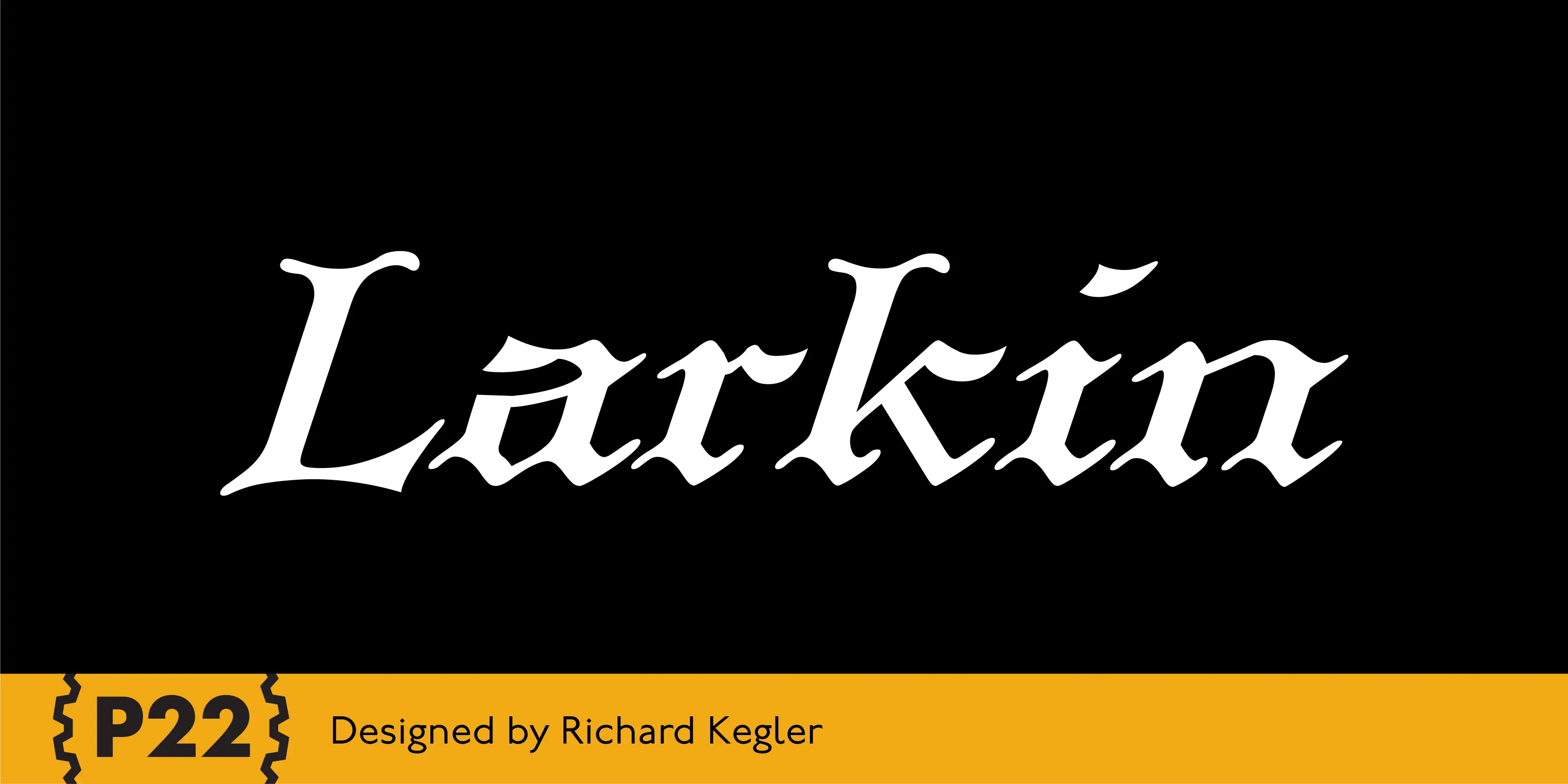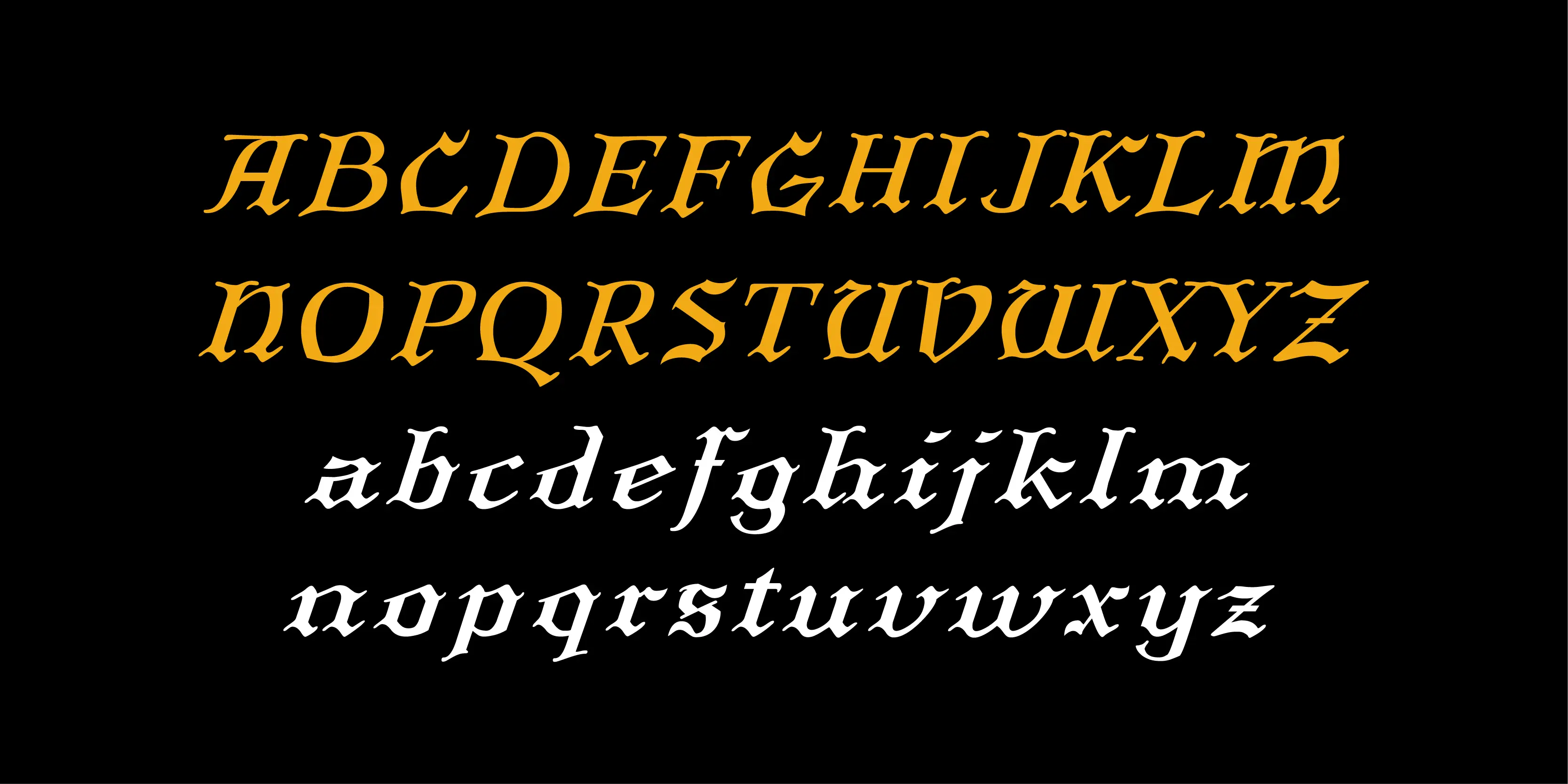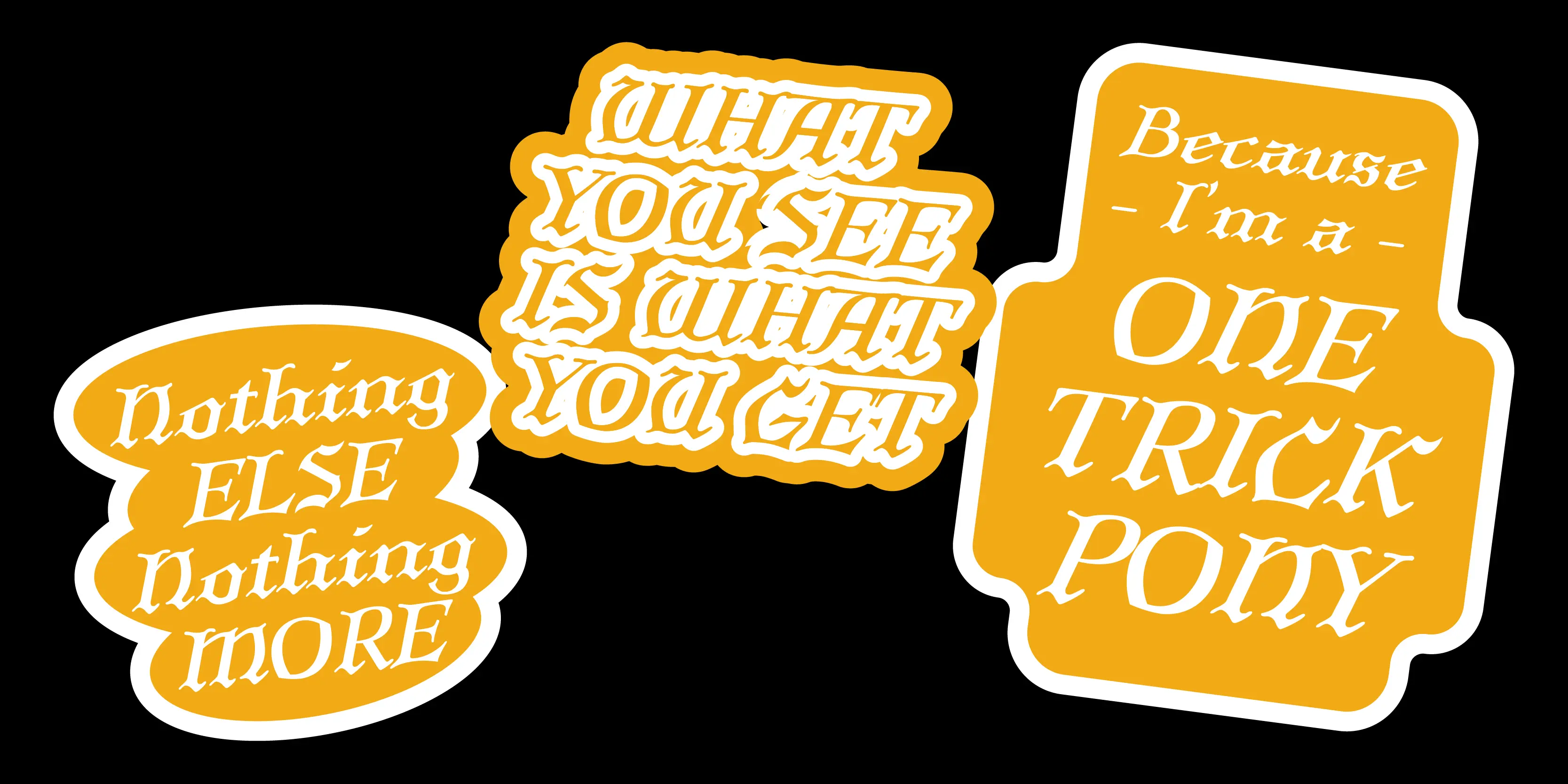
Larkin Font
Larkin
The lettering style is an unusual combination of German Blackletter and Romanized capitals with an Italic slant. It is evocative of “old world” craftmanship and early 20th century romanticism. The font was developed based on the logo of the Lakin Company of Buffalo, NY circa 1900.